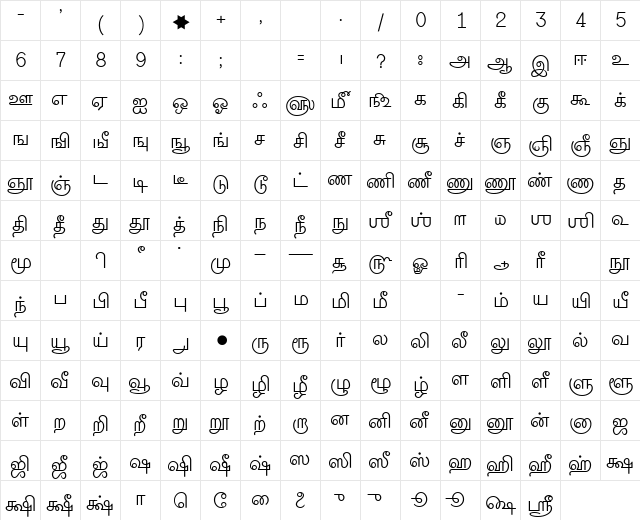
SHREE-TAM-0802 Regular
Design Context for SHREE-TAM-0802 Typeface
SHREE-TAM-0802 is a composed and adaptable typeface that performs quietly and consistently across a wide range of design contexts.